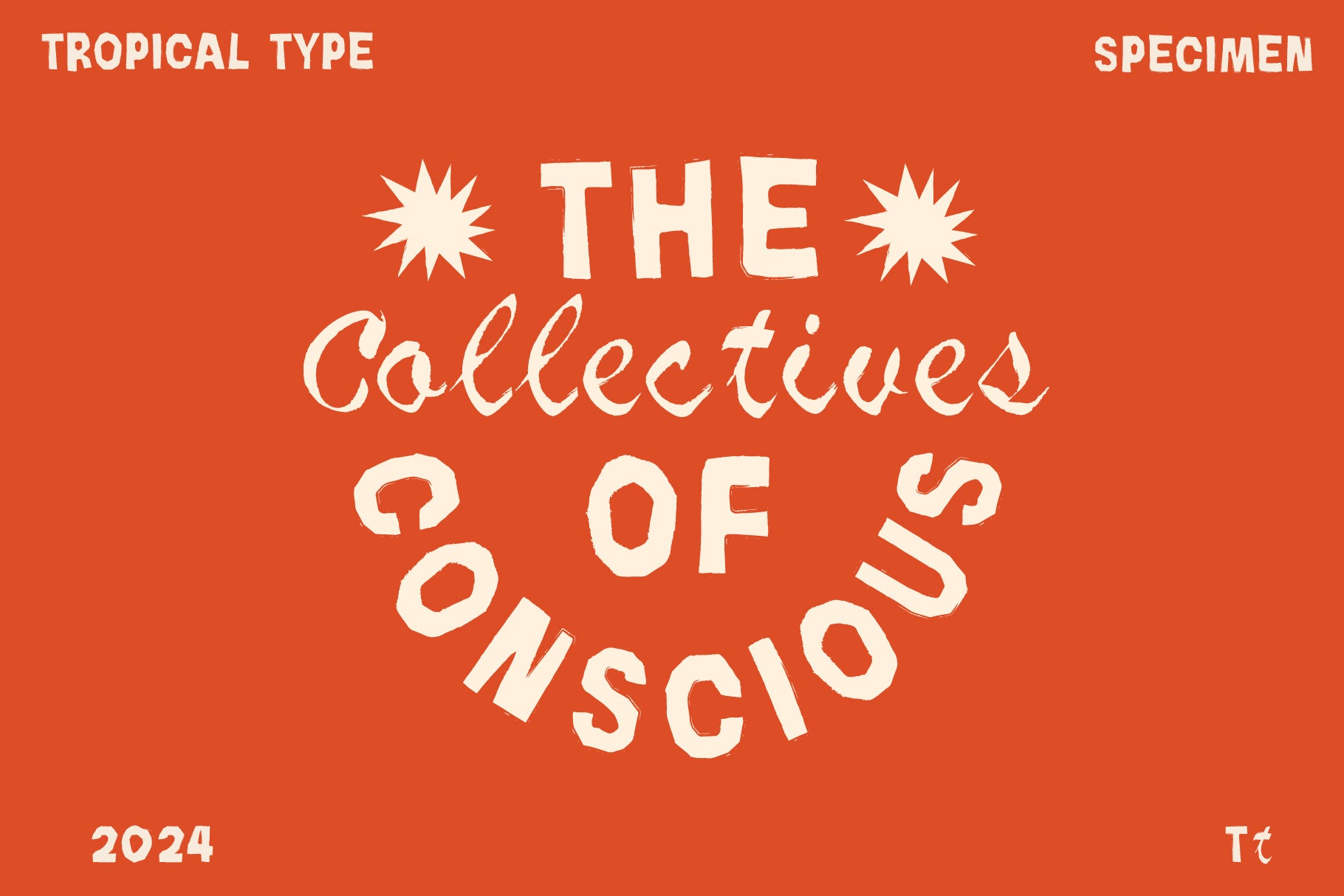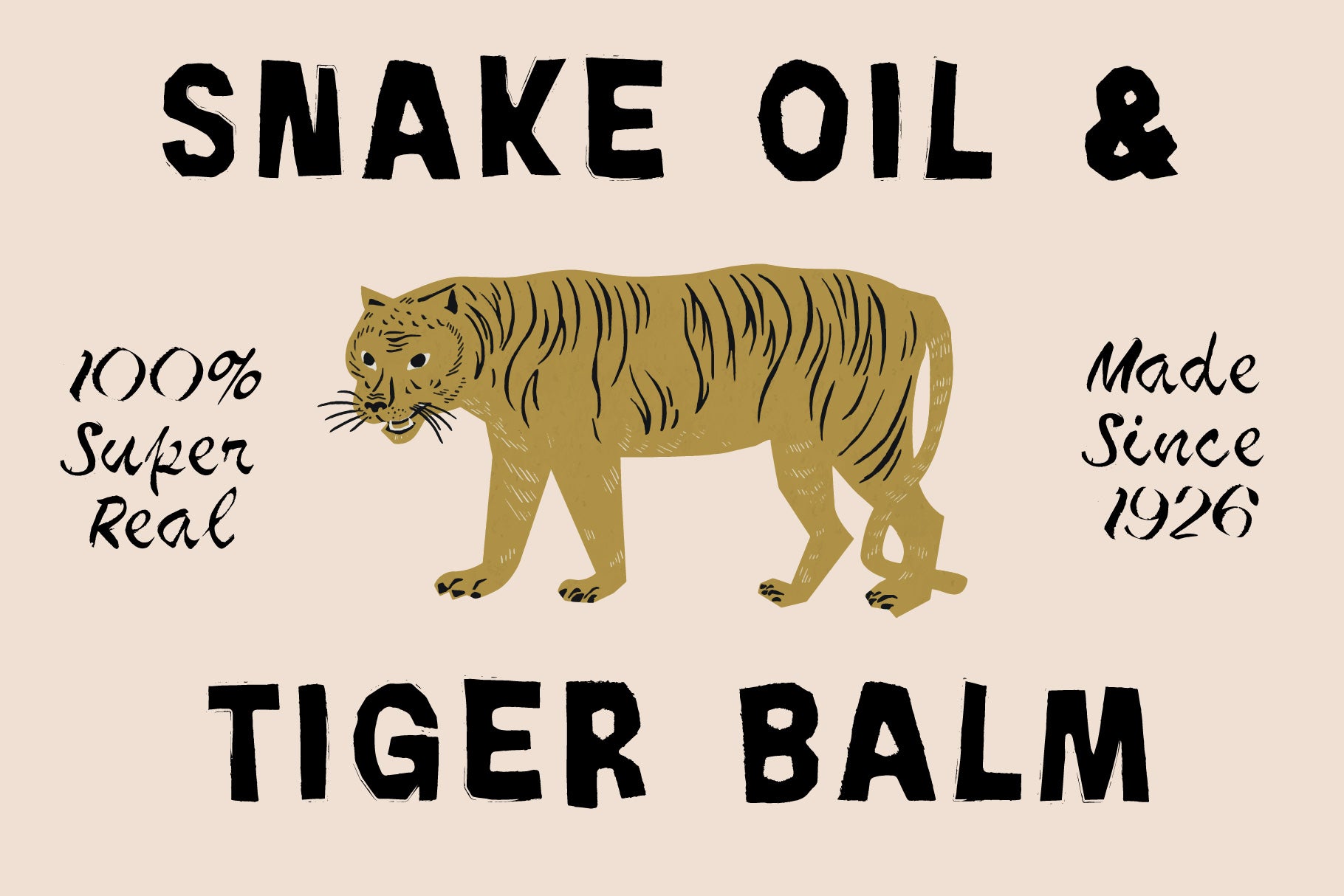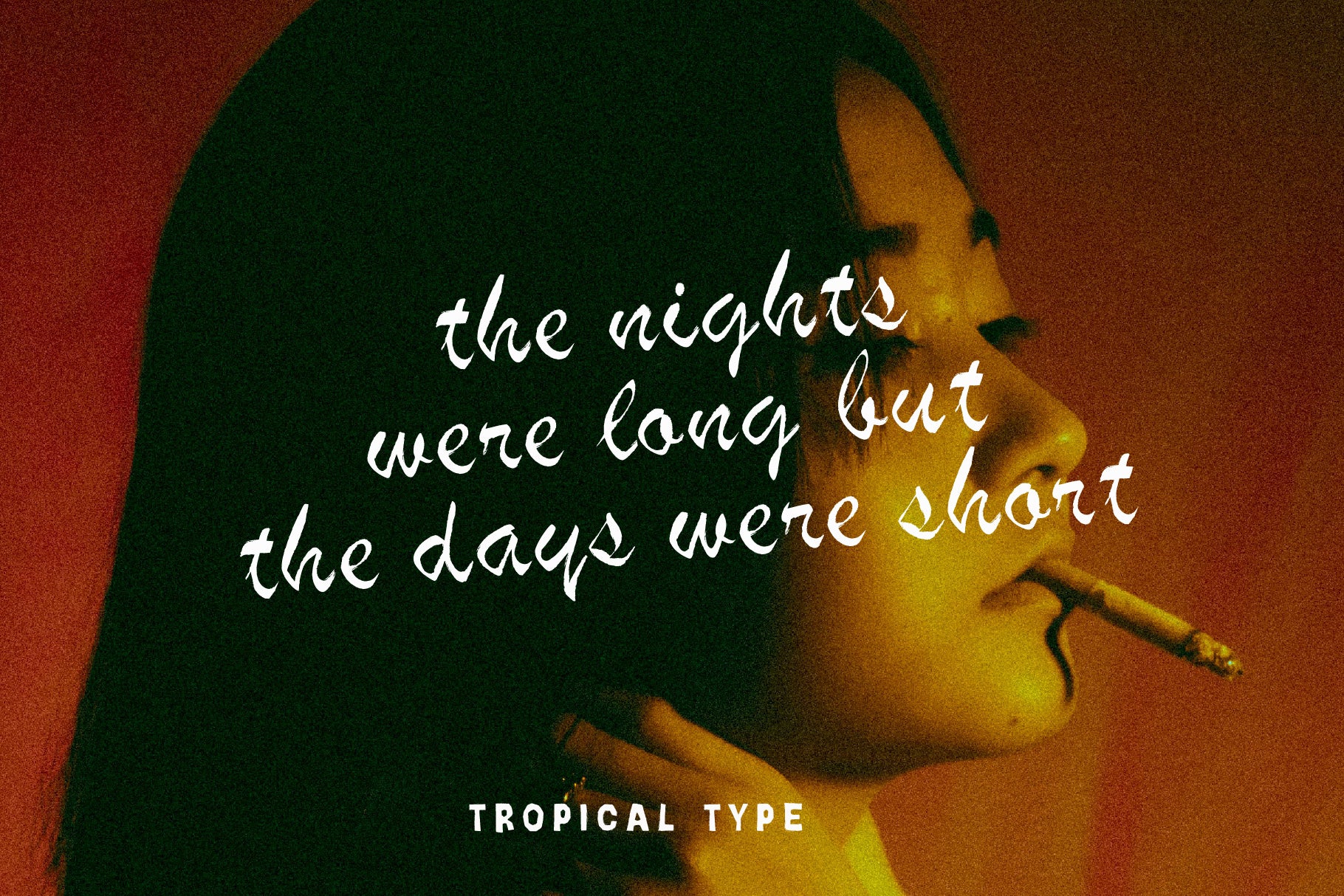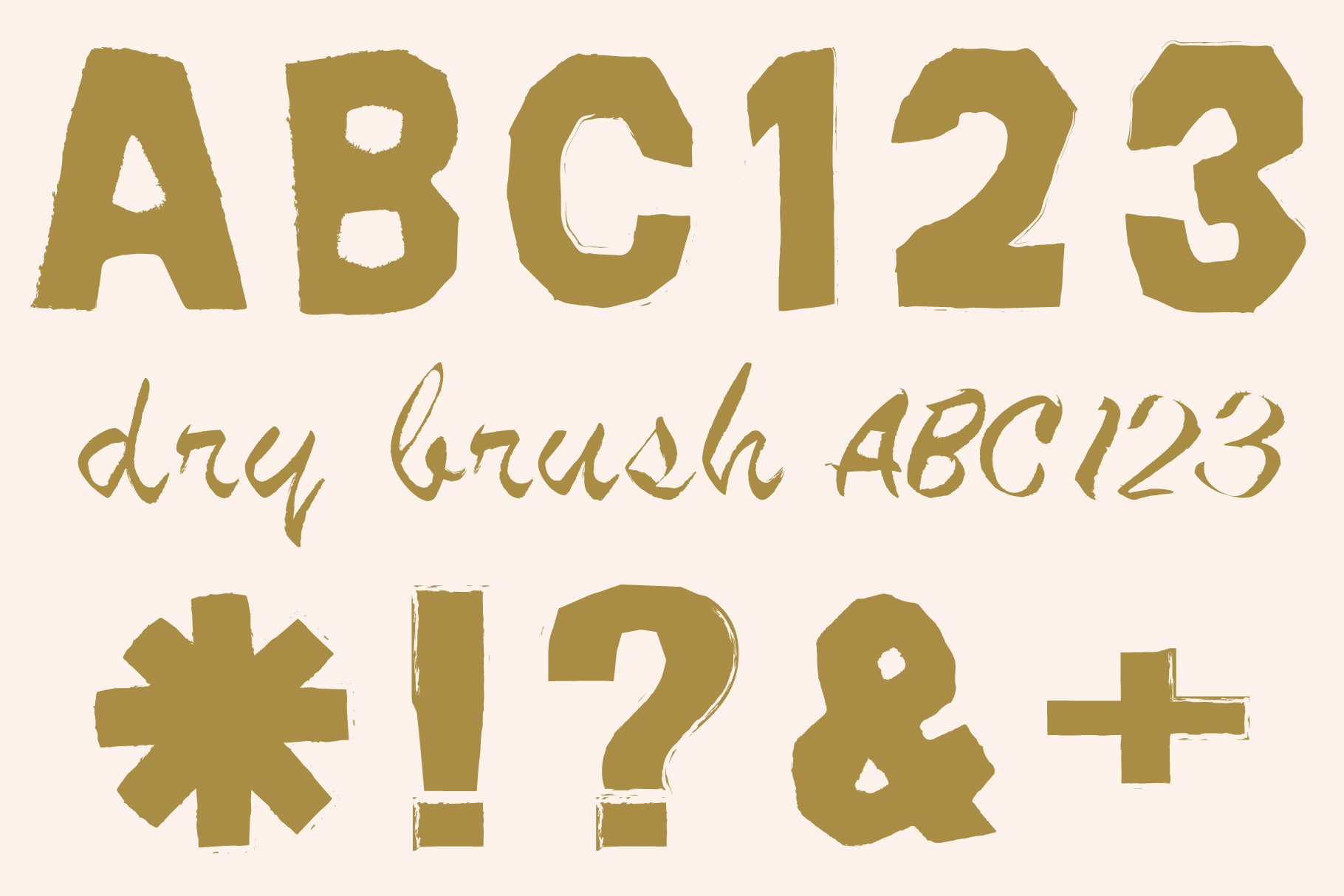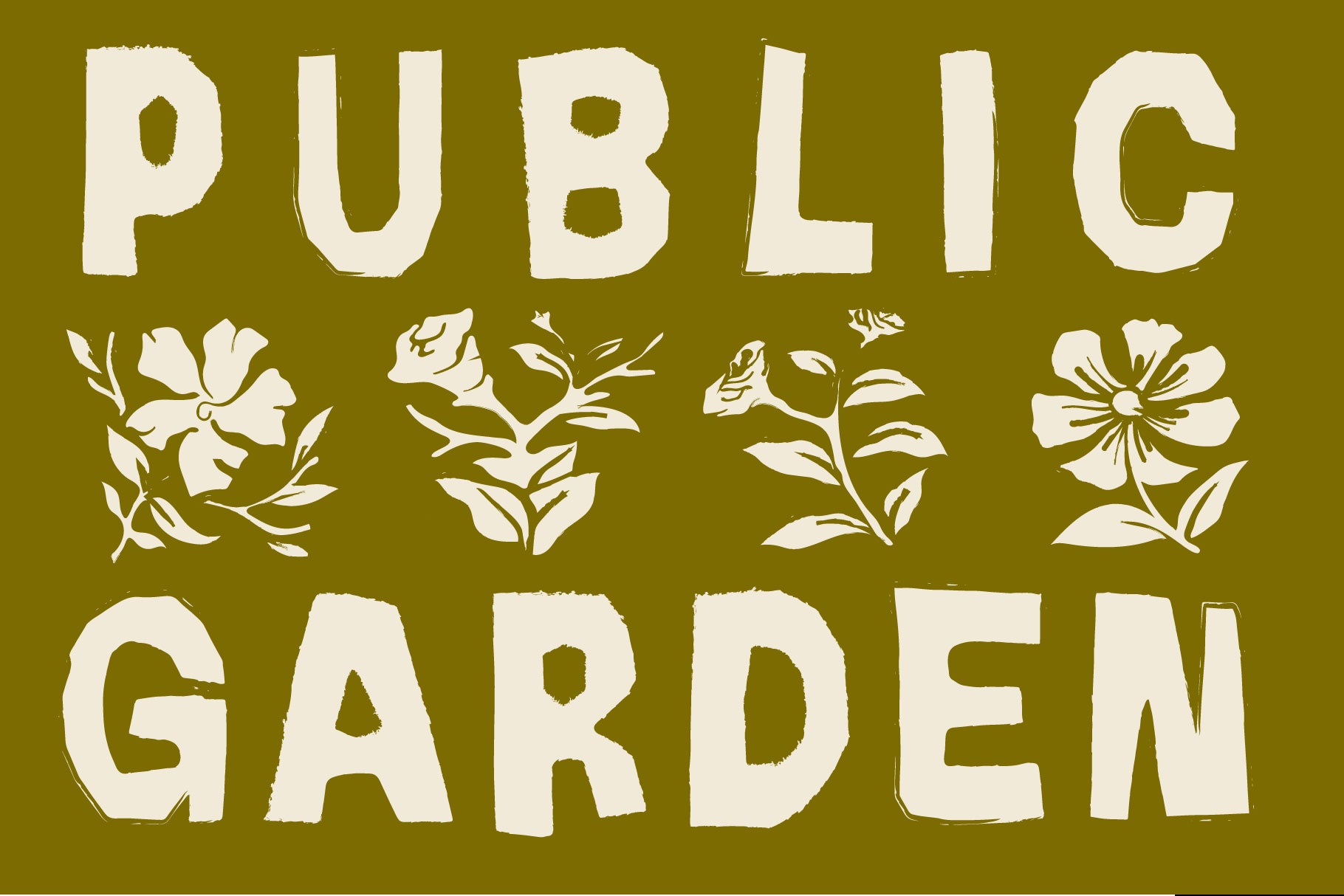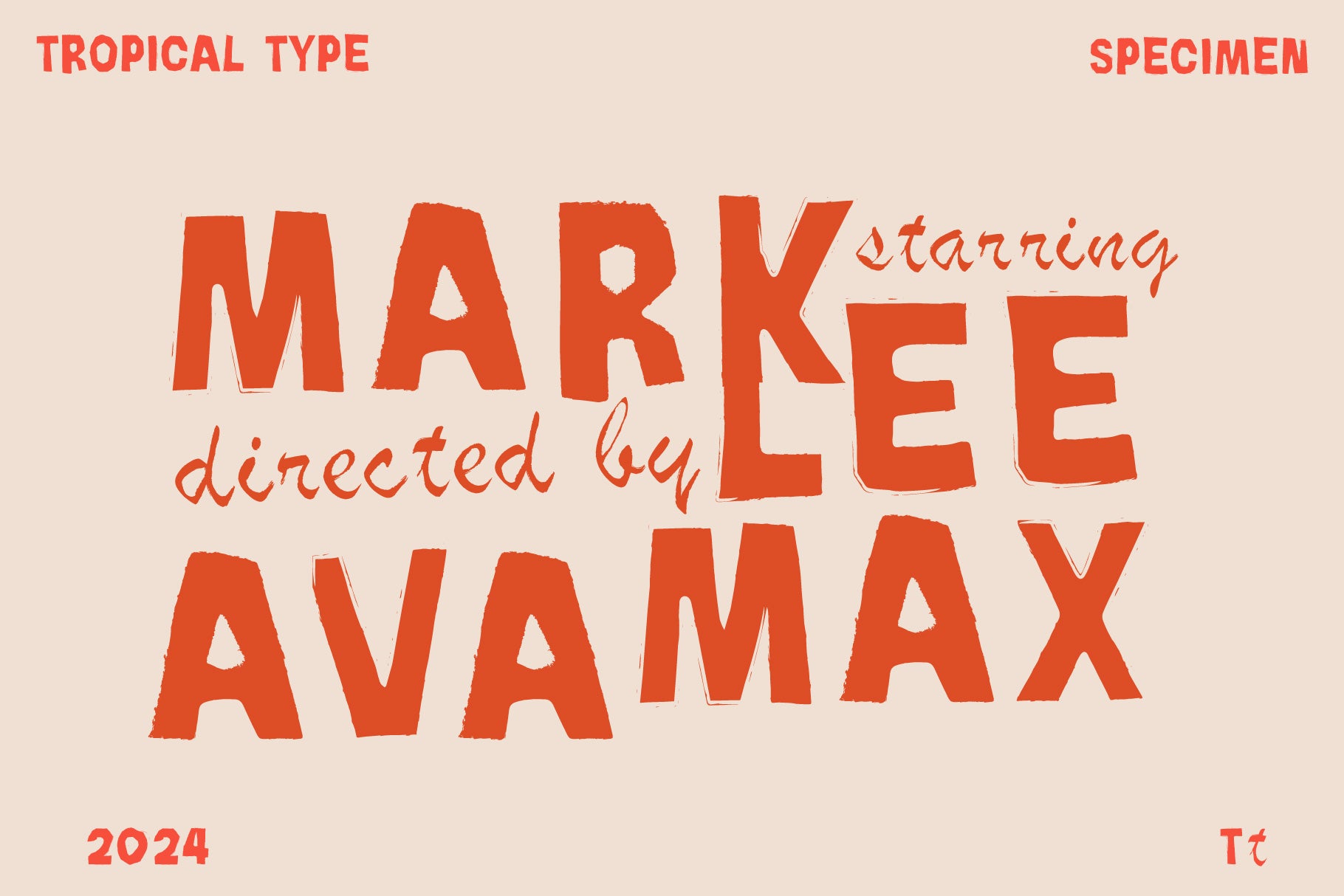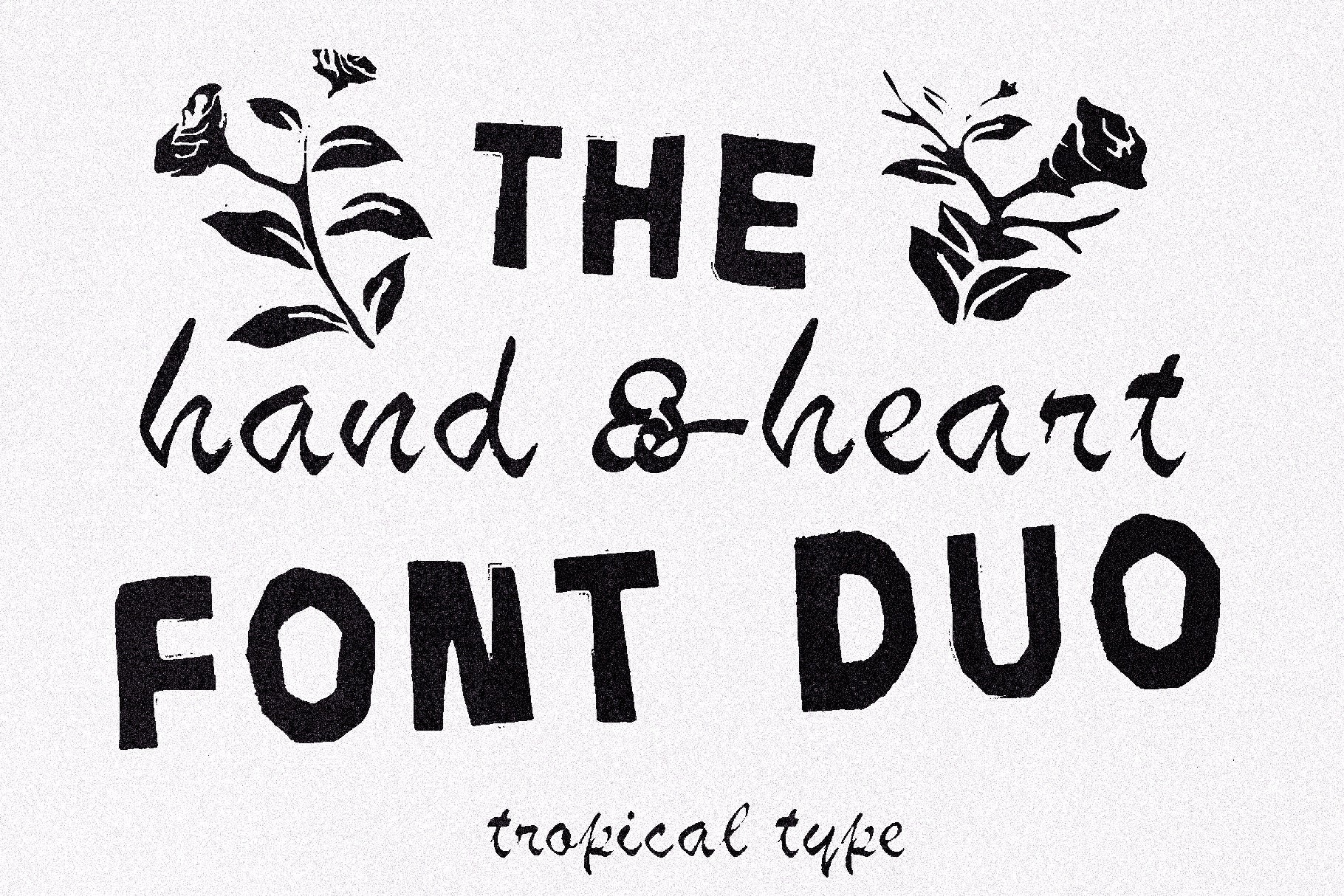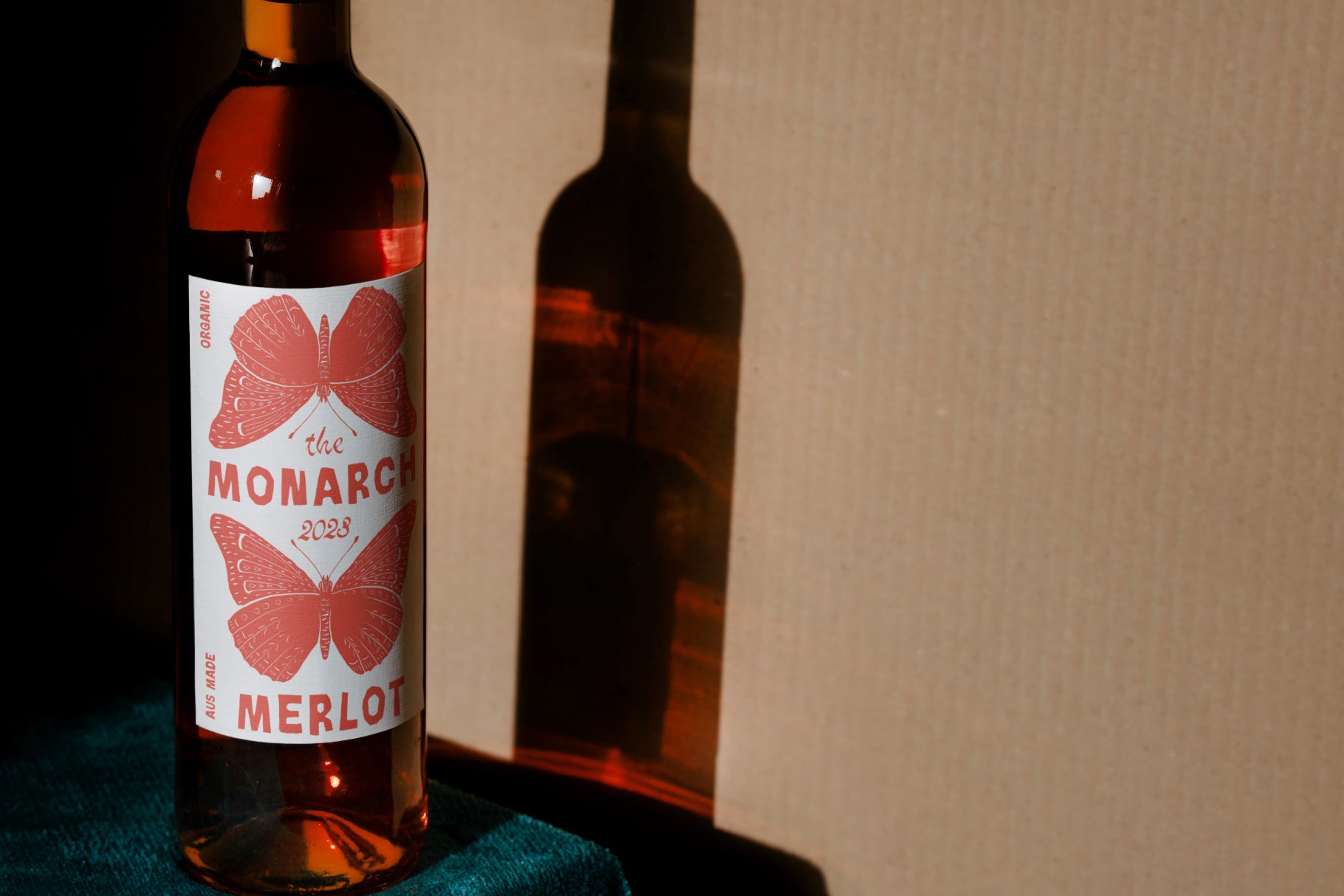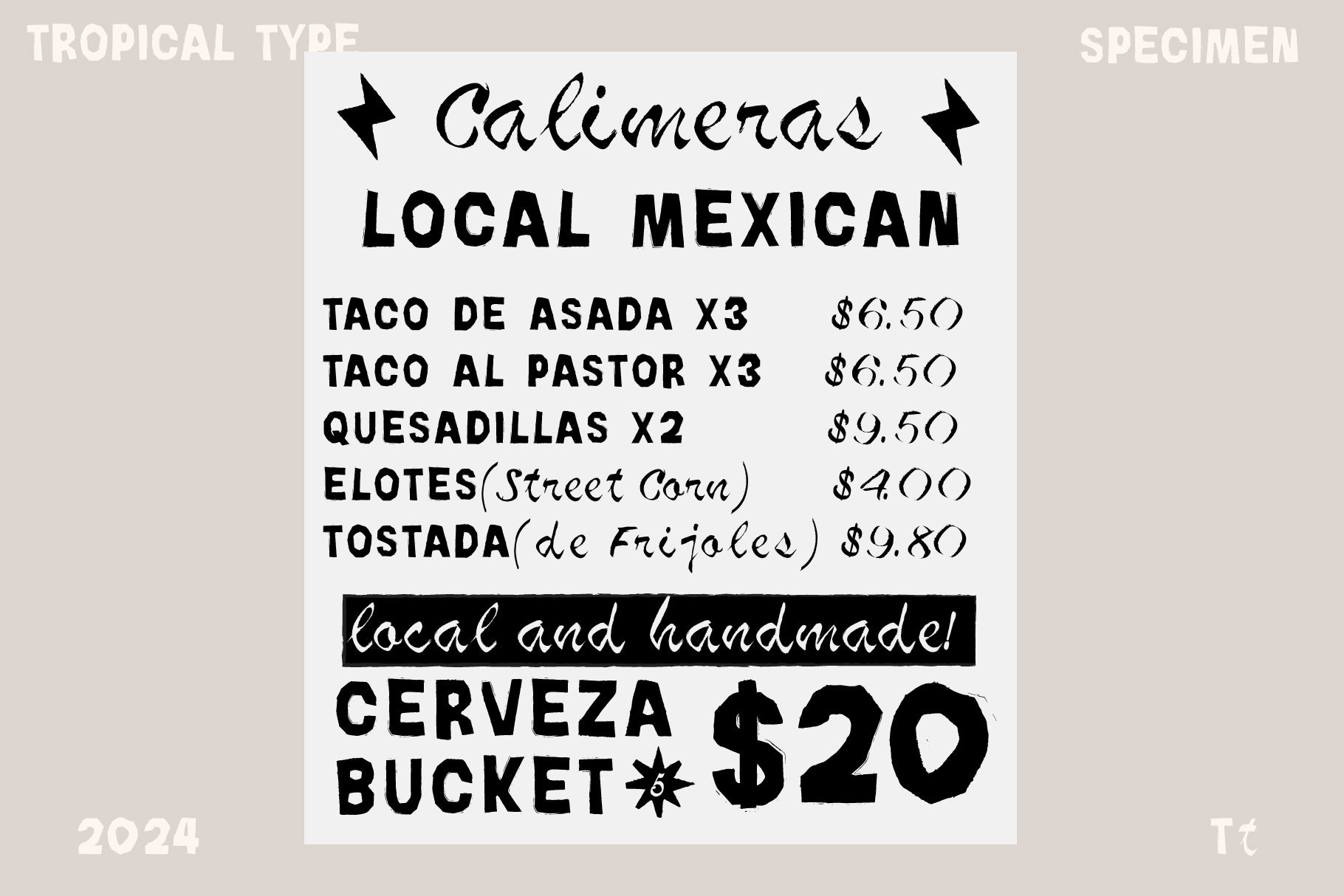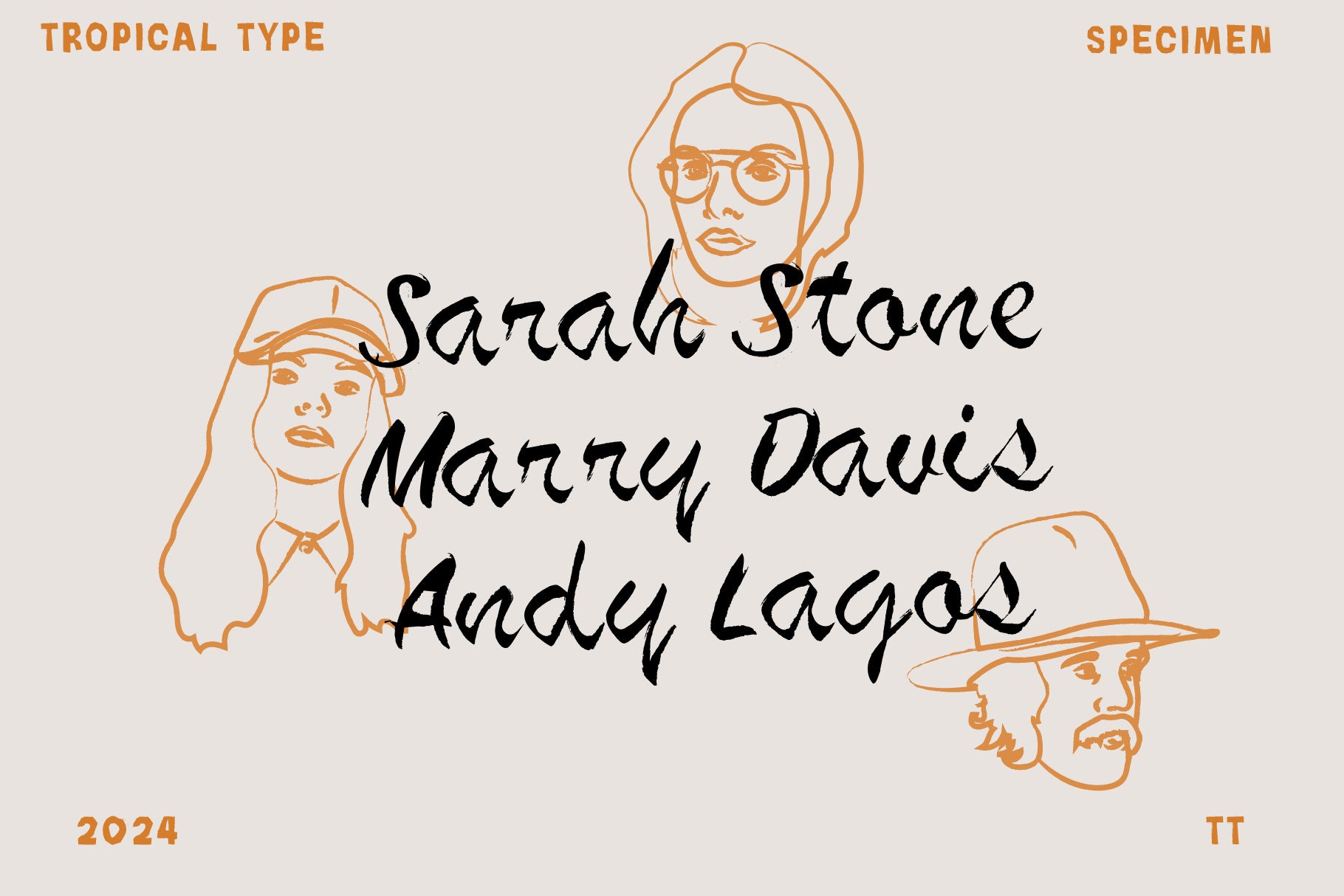
Hand & Heart Font Duo
Hand & Heart is a real handmade font duo. Cut out of paper and a dry brushed script.
If you want to get away from the AI rat-race, then try something 100% natural, made with hand and heart!
UPPERCASE, UPPERCASE ALTERNATES, LOWERCASE, LOWERCASE ALTERNATES.
NUMBERS, NUMBER ALTERNATES.
Non English glyphs included: